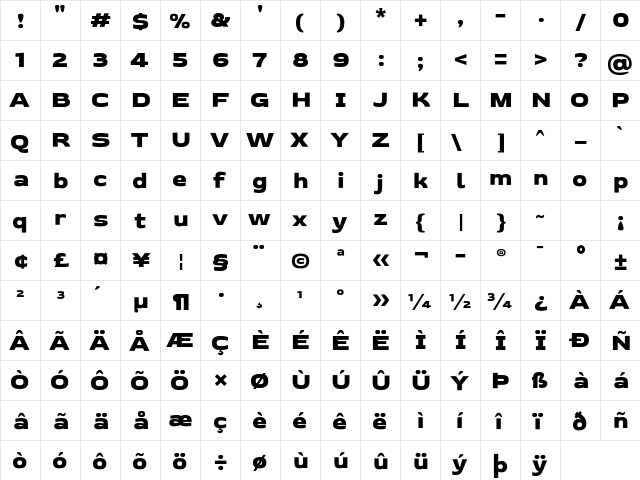
Dashboard Regular
| Designer | jaiki |
Design Context for Dashboard Typeface
Dashboard offers clean, dependable letterforms without strong stylistic allegiance, making it a practical choice for designers who need flexibility.